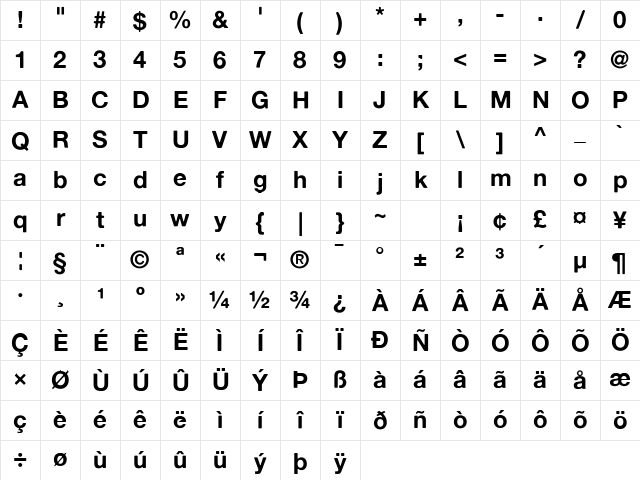
Complete Alte Haas Grotesk Bold glyph index. Displaying only characters natively supported by Alte Haas Grotesk Bold font.
Alte Haas Grotesk takes a clean, functional approach - its unadorned letterforms prioritise legibility and work reliably across screen and print environments. Its bold stroke weight gives it real presence on the page.
Font Pairing: Use Alte Haas Grotesk for headlines alongside a lighter-weight sans or serif for body copy to establish clear visual hierarchy.
Pro Tip: Use Alte Haas Grotesk for UI labels, navigation, and short-form body copy where clean legibility is the priority.